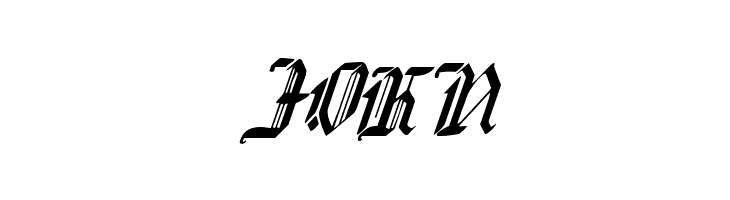
Iapetus Condensed Italic Font
- Font: Iapetus Condensed Italic
- Weight: Condensed Italic
A bold, condensed, and italicized font with high contrast and calligraphic elements.